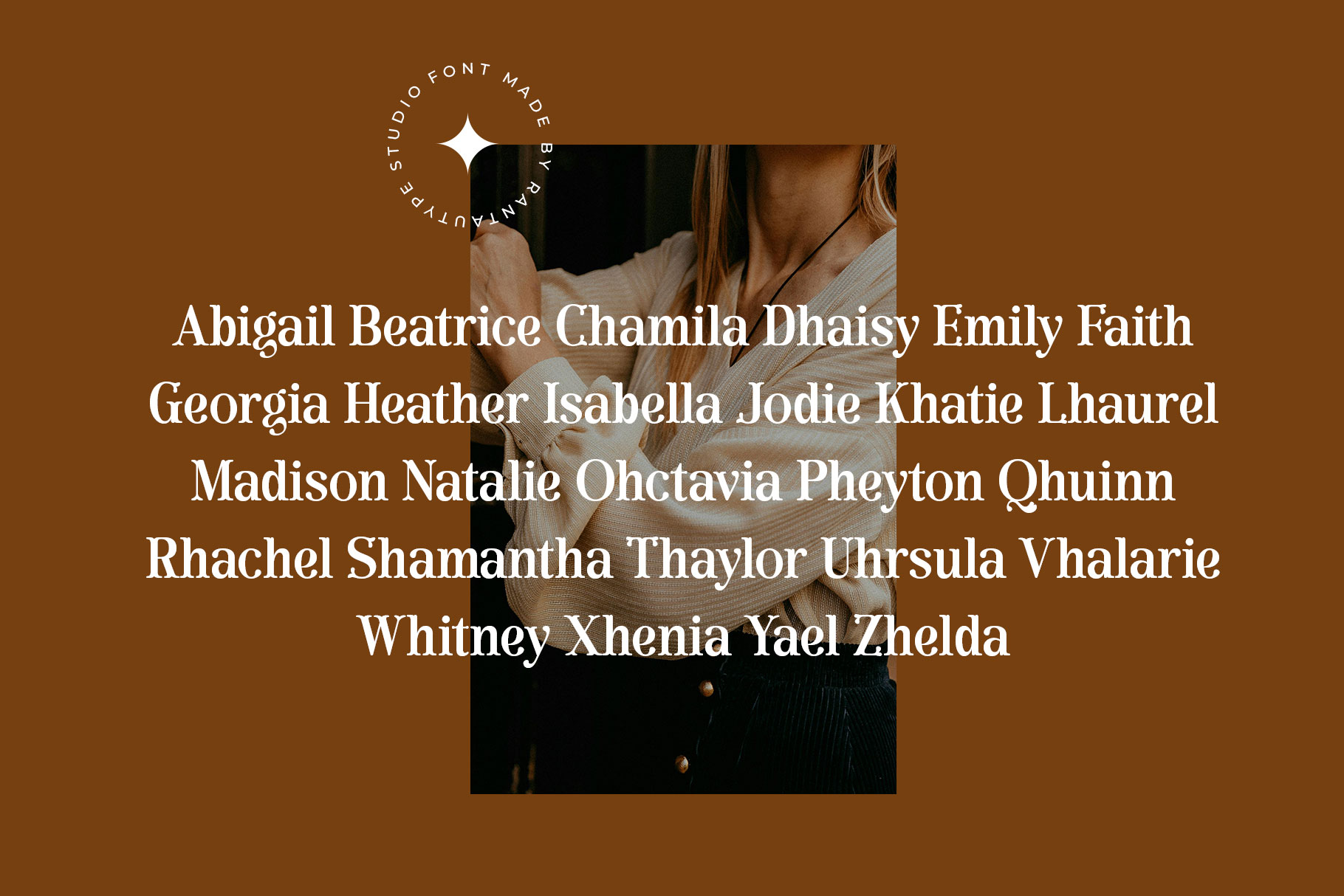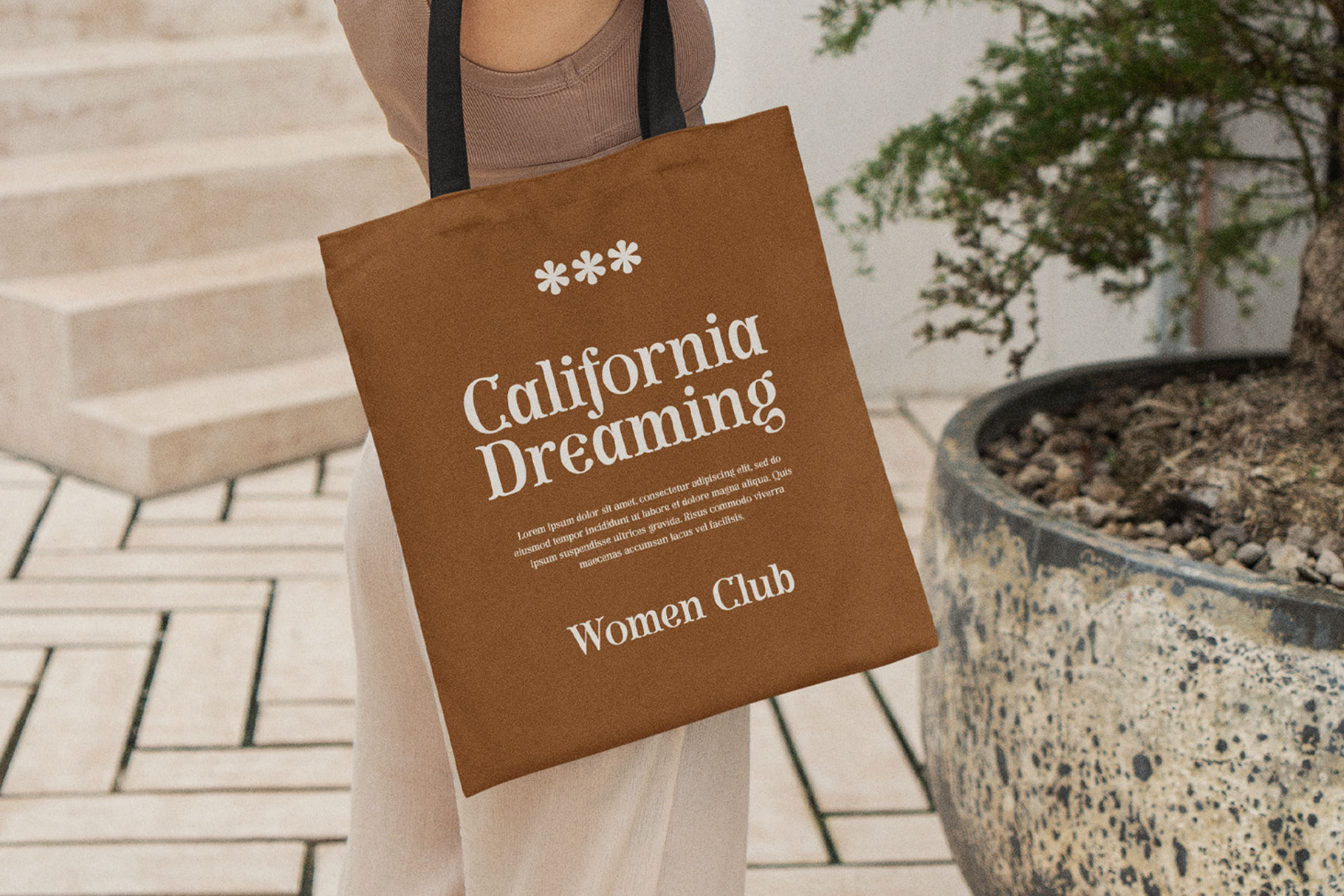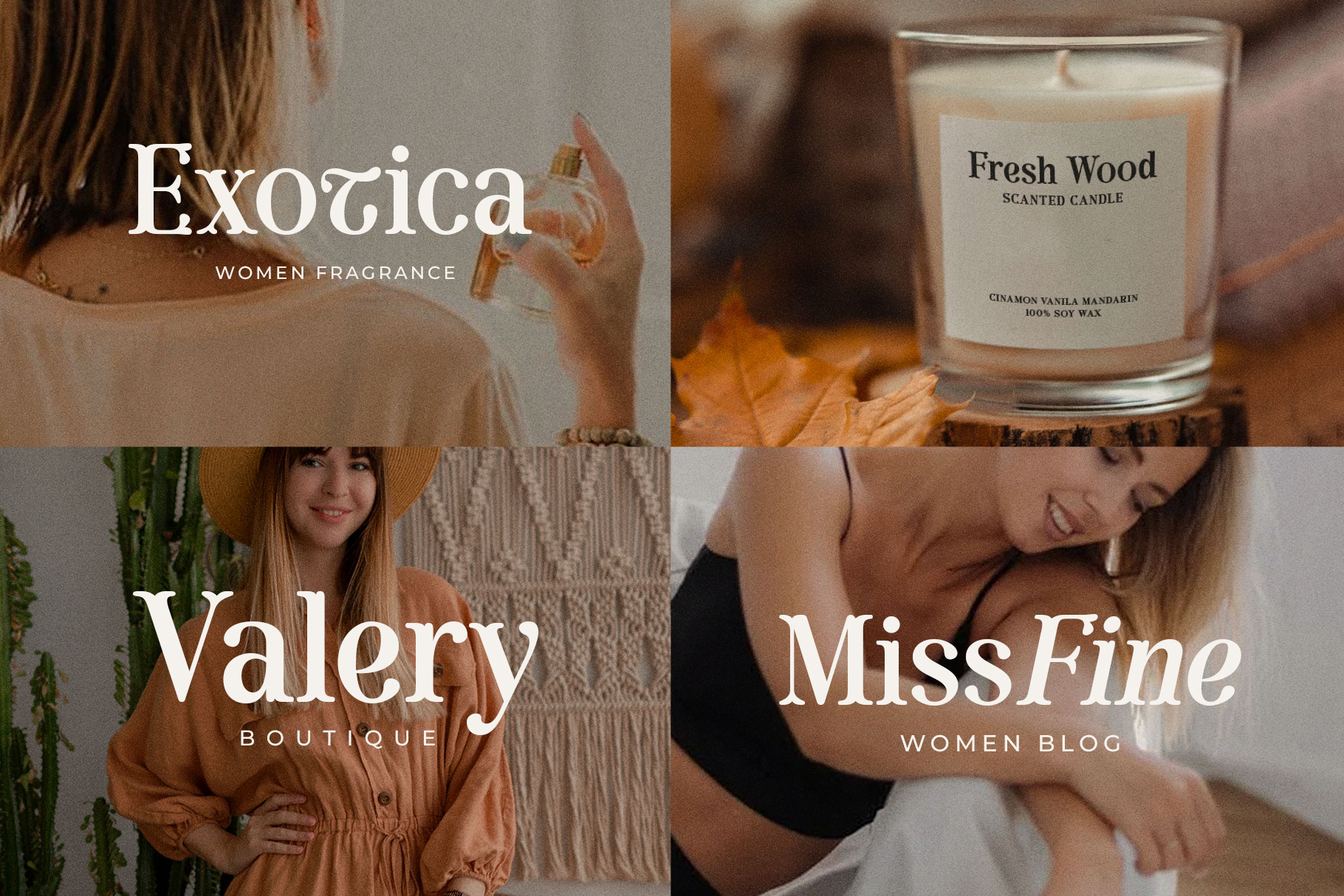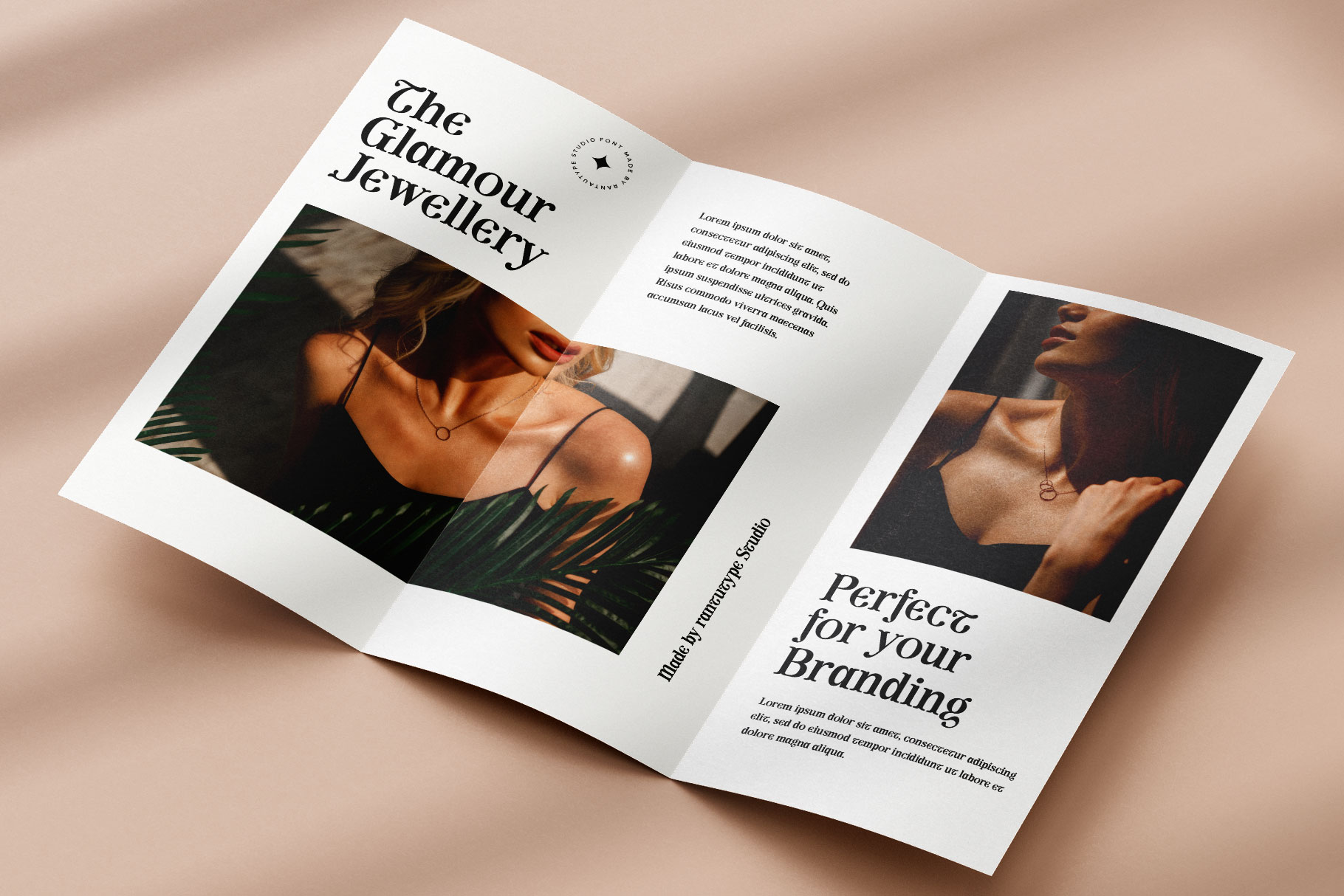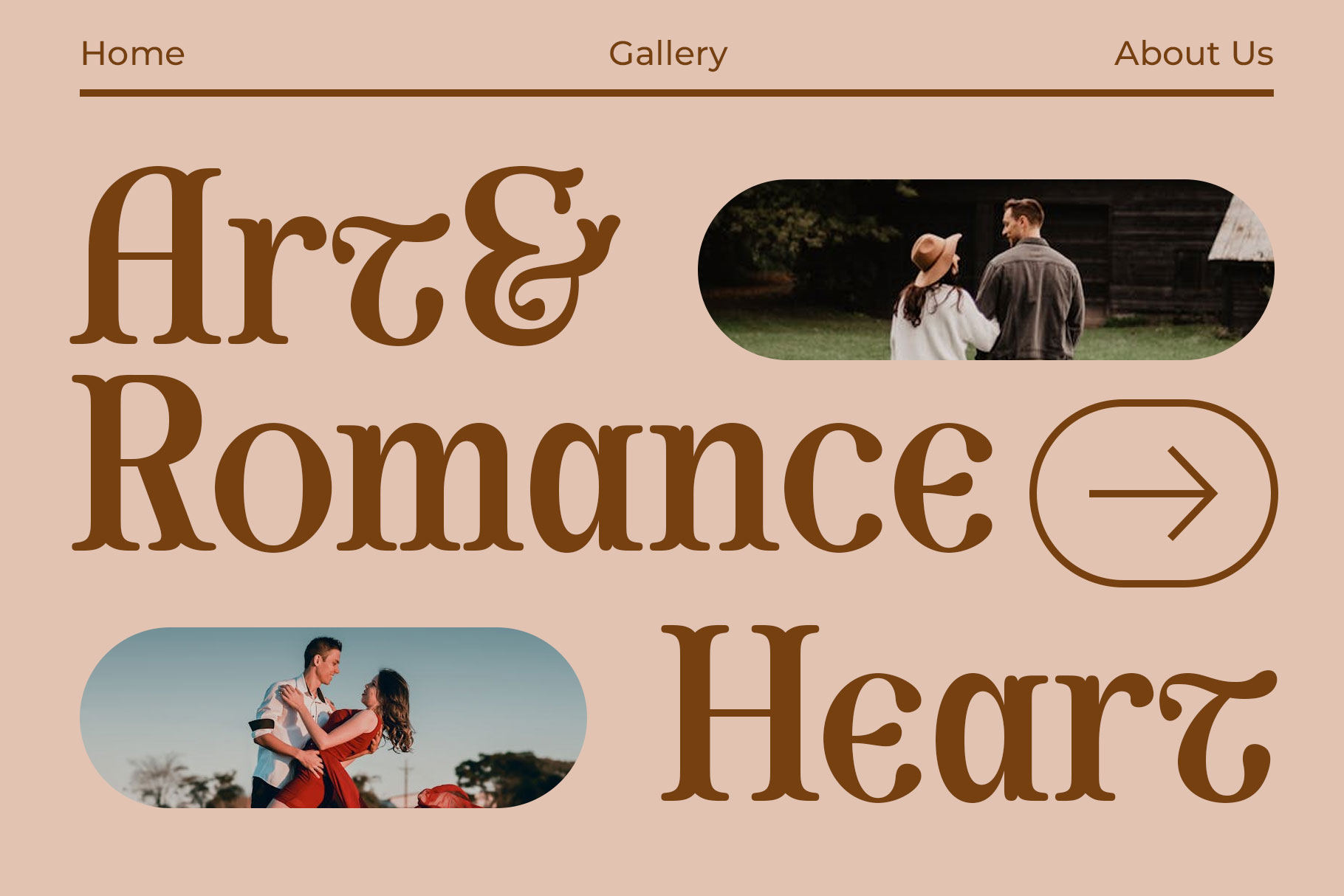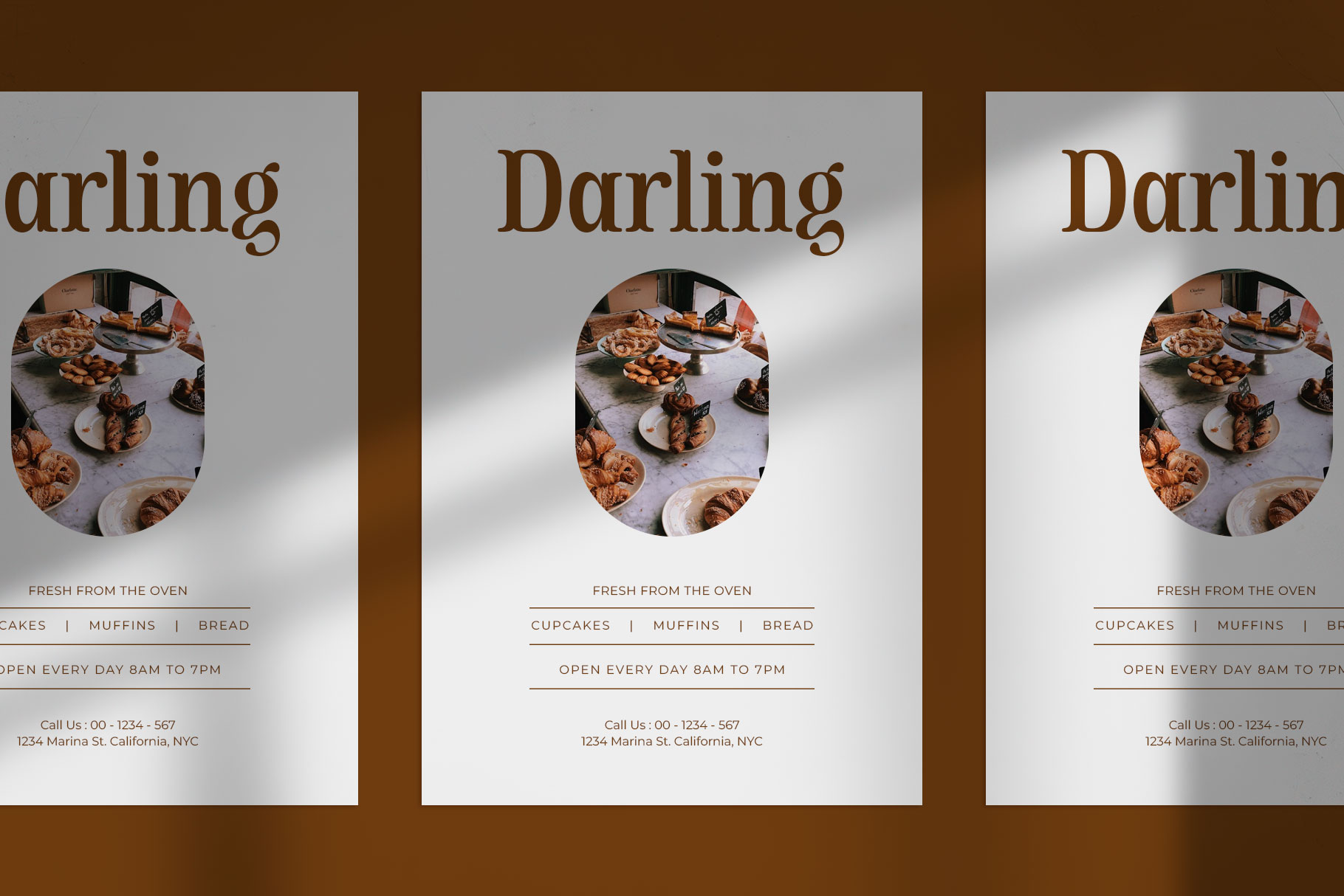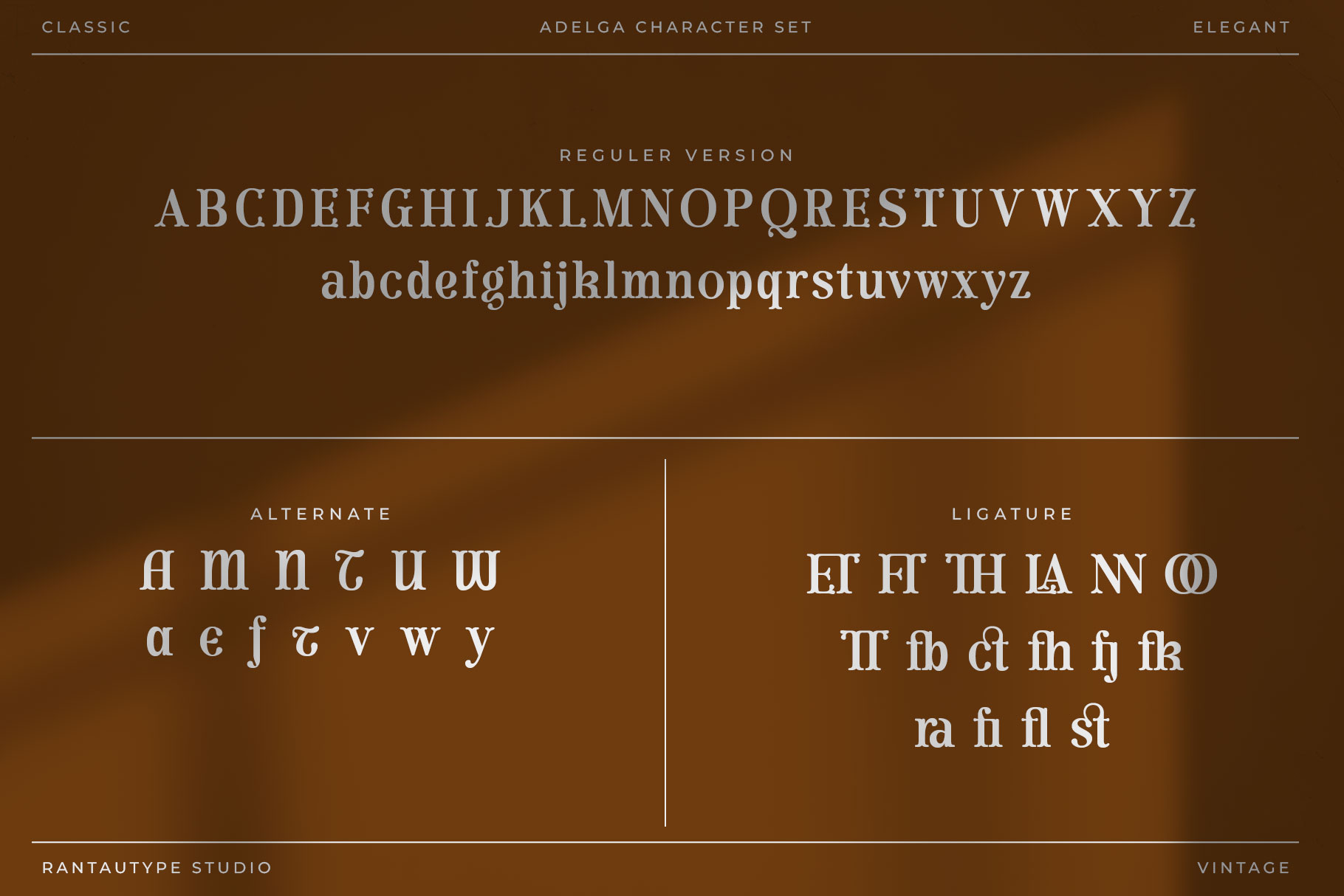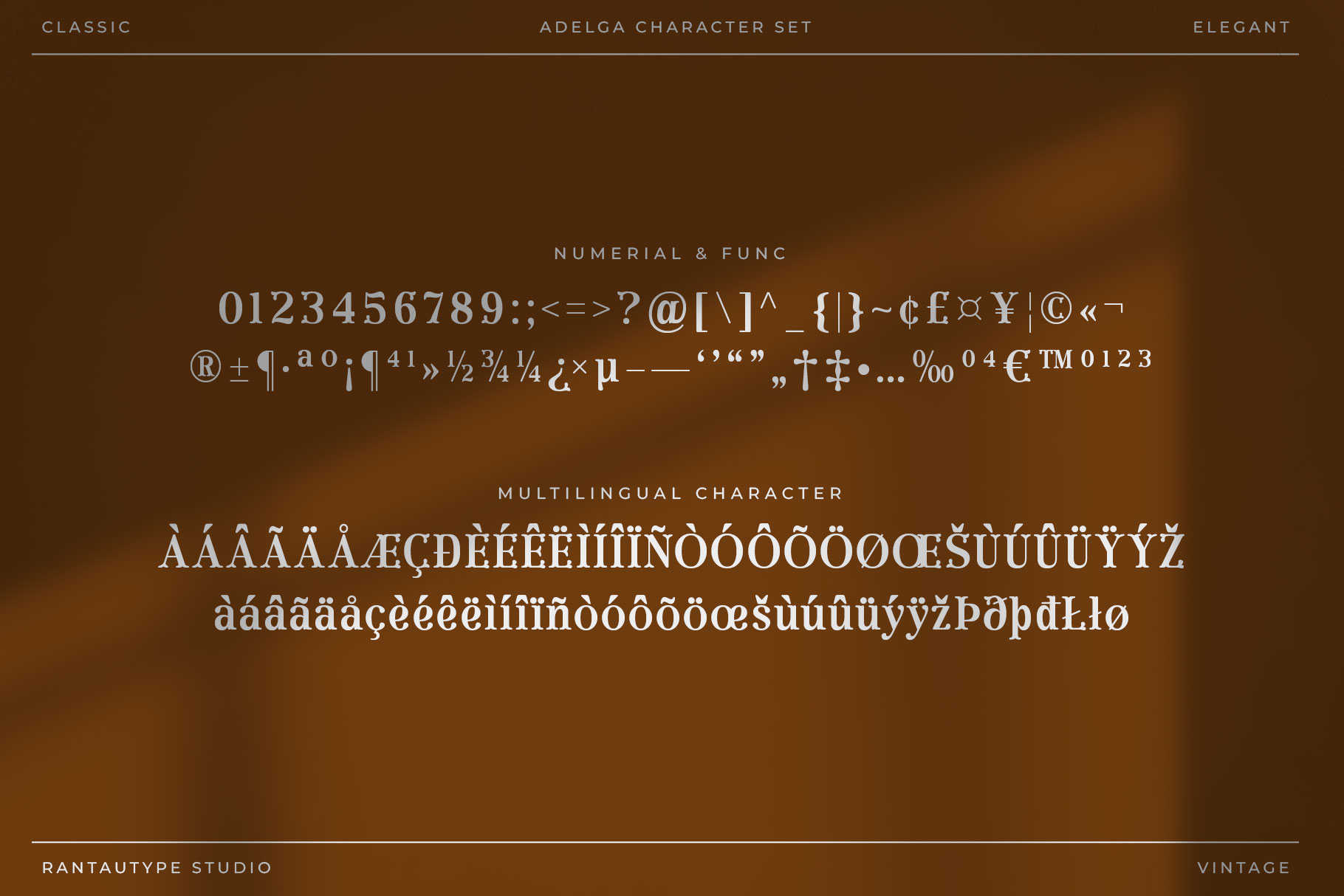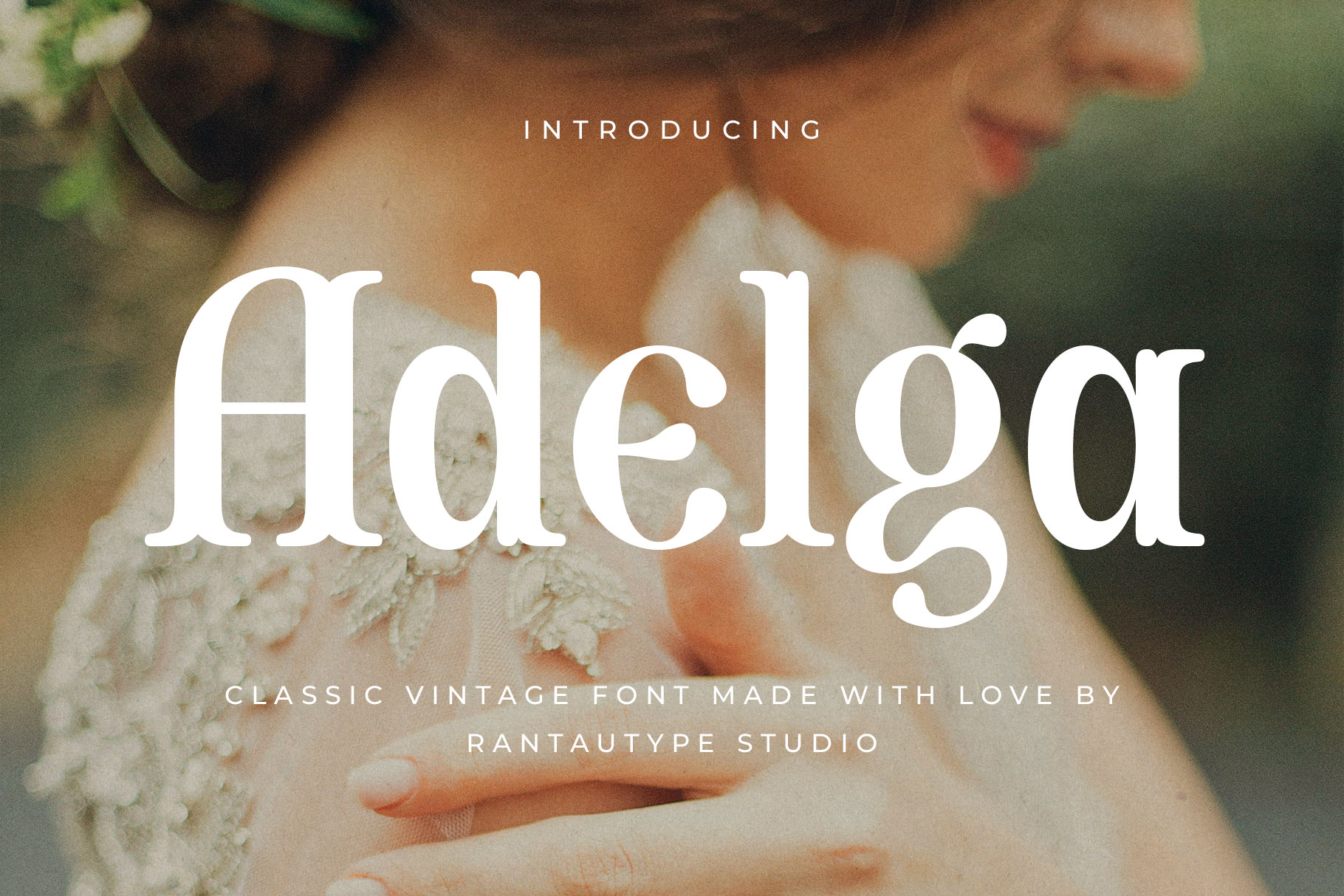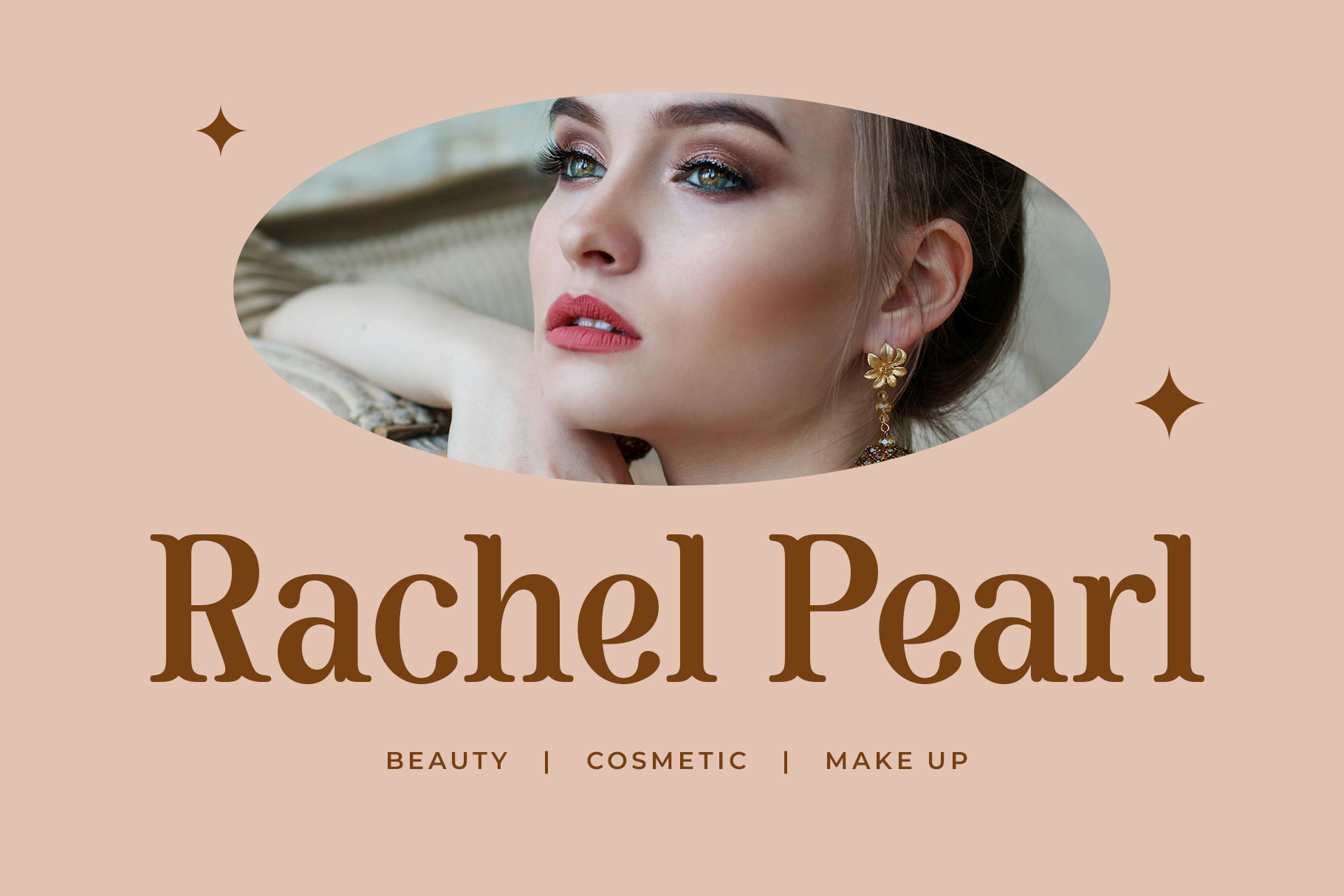
Adelga Classic Vintage Font
Adelga is classic vintage serif inspire by aesthetic wedding visual design. Adelga bring beautiful unique shape which symbolizes flowers that make your project more elegant. We keep this font look classic, feminine and elegant.
Adelga is a perfectly choice for any creative endeavor, creating elegant, modern, chic, lifestyle design such as logotype, title, cover, branding, invitations, wedding designs, display and magazine, social media posts, advertisements, printed quotes, product packaging, corporate brand, product designs, labels, photography, watermarks, special events and any other project with elegant touch.